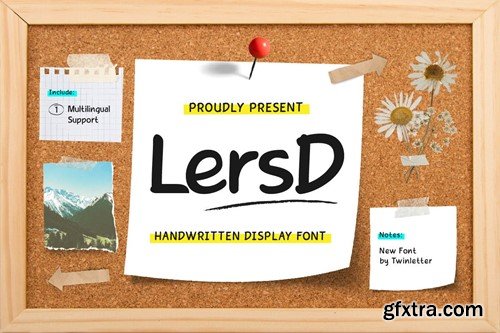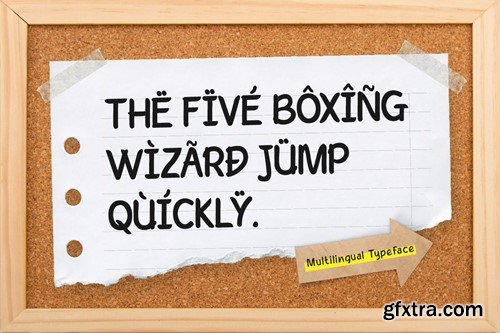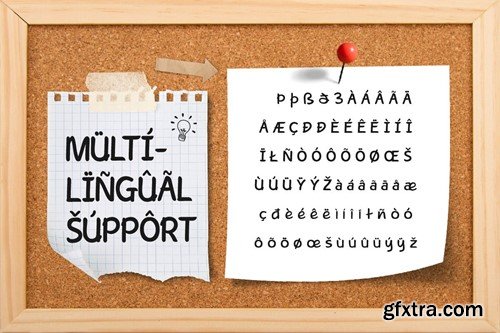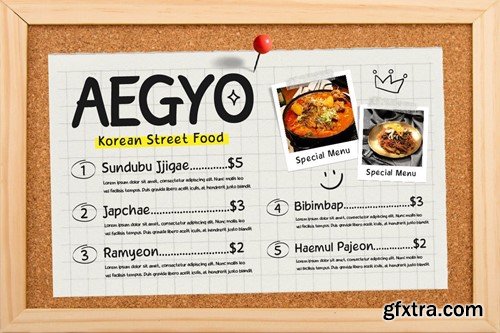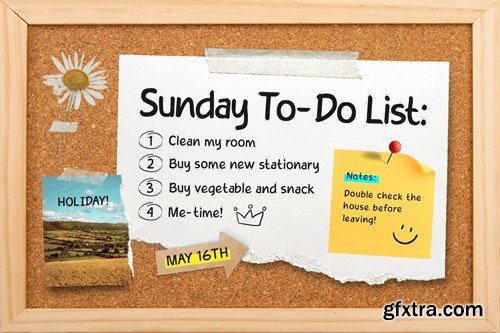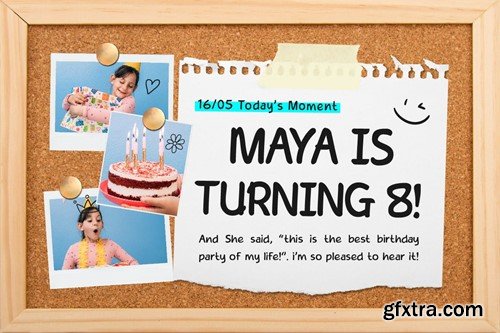
LersD - 手写体字体 FESA9P5
LersD - Handwritten Font FESA9P5
LersD - Handwritten Font
LersD is a handwritten font that brings a touch of elegance to your designs. Its delicate, flowing characters mimic the beauty of human handwriting, making it ideal for invitations, greeting cards, and any design where you want to add a touch of sophistication.